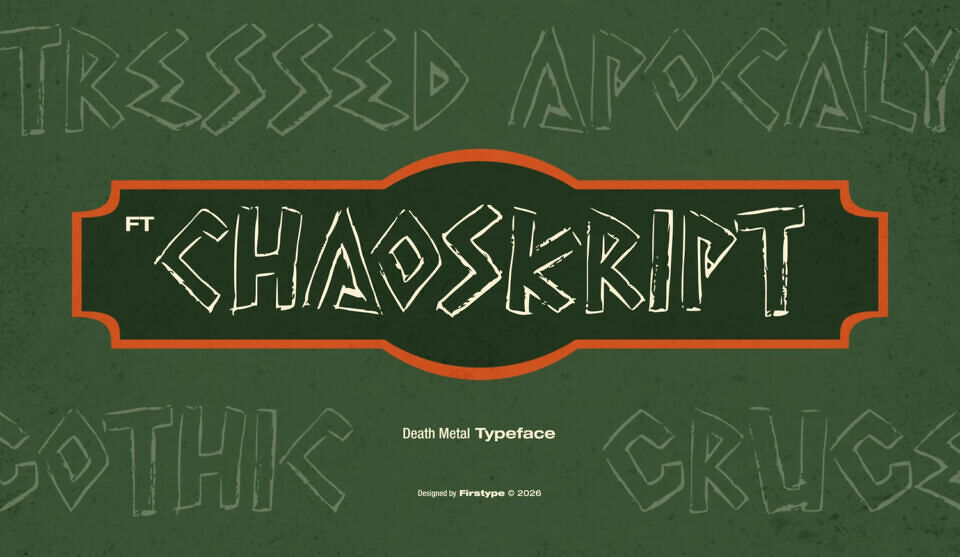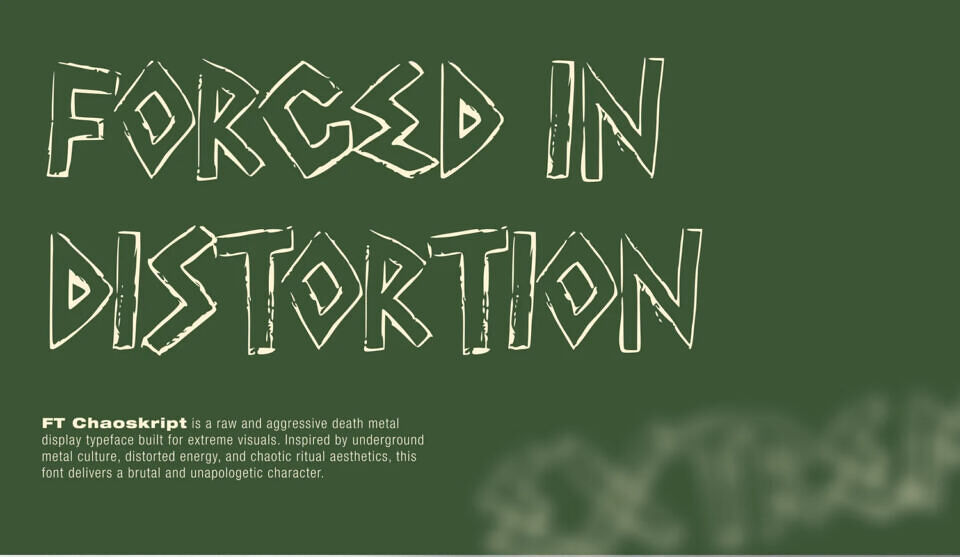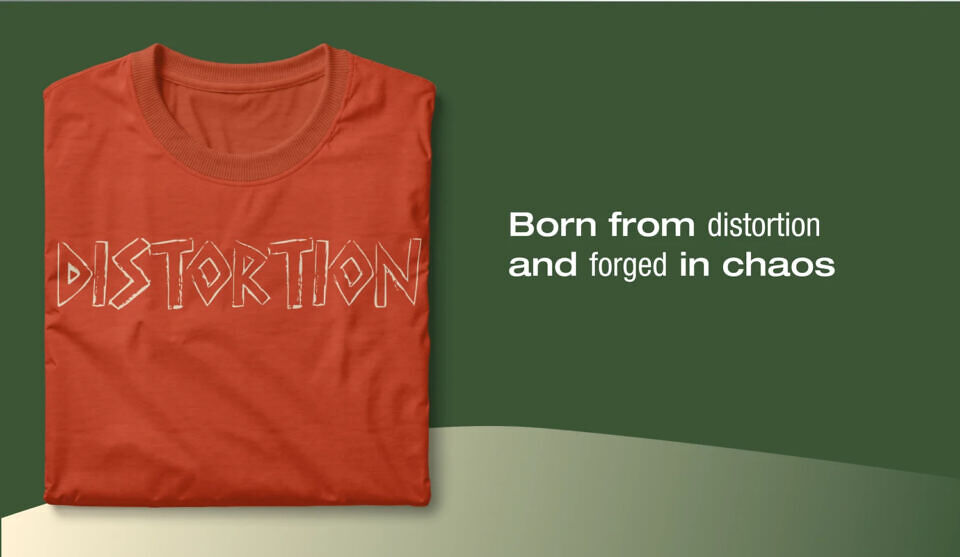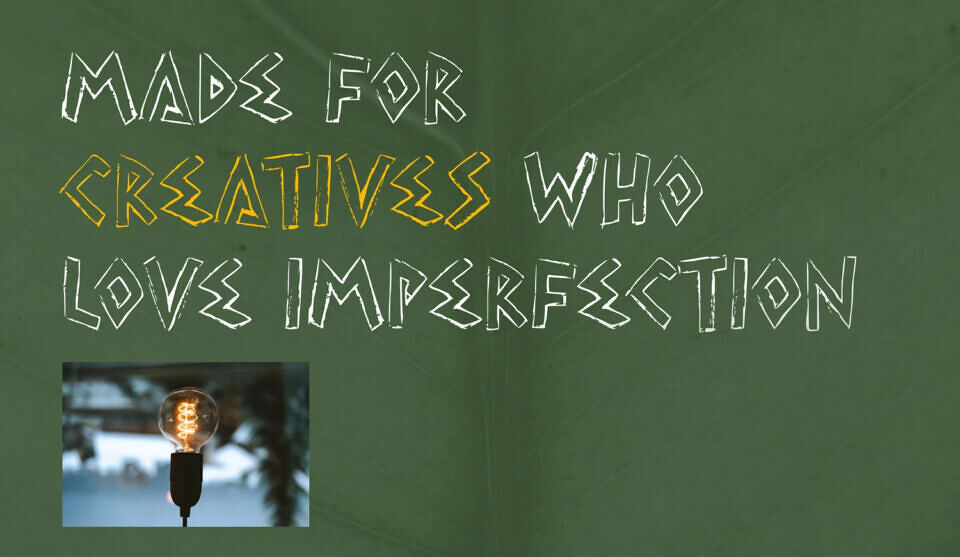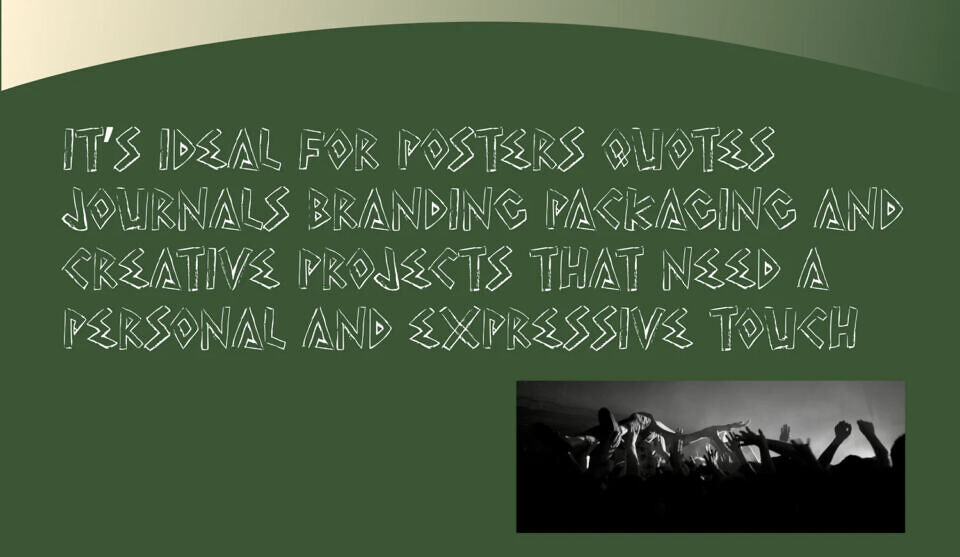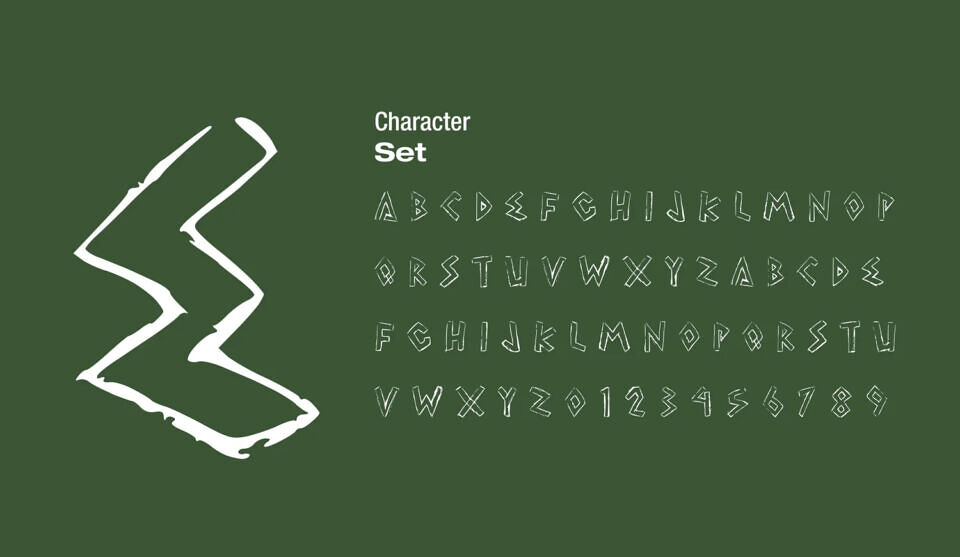
Born from distortion and forged in chaos, FT Chaoskript is a raw and aggressive death metal display typeface built for extreme visuals. Designed by Firstype Studio in 2026, this font is a tribute to the unapologetic energy of the underground scene.
Inspired by underground metal culture, distorted energy, and chaotic ritual aesthetics, FT Chaoskript delivers a brutal and unapologetic character to any design. Whether you are working on a dark art project or high-end streetwear, this typeface cuts through the noise with its sharp, jagged edges and gothic undertones.